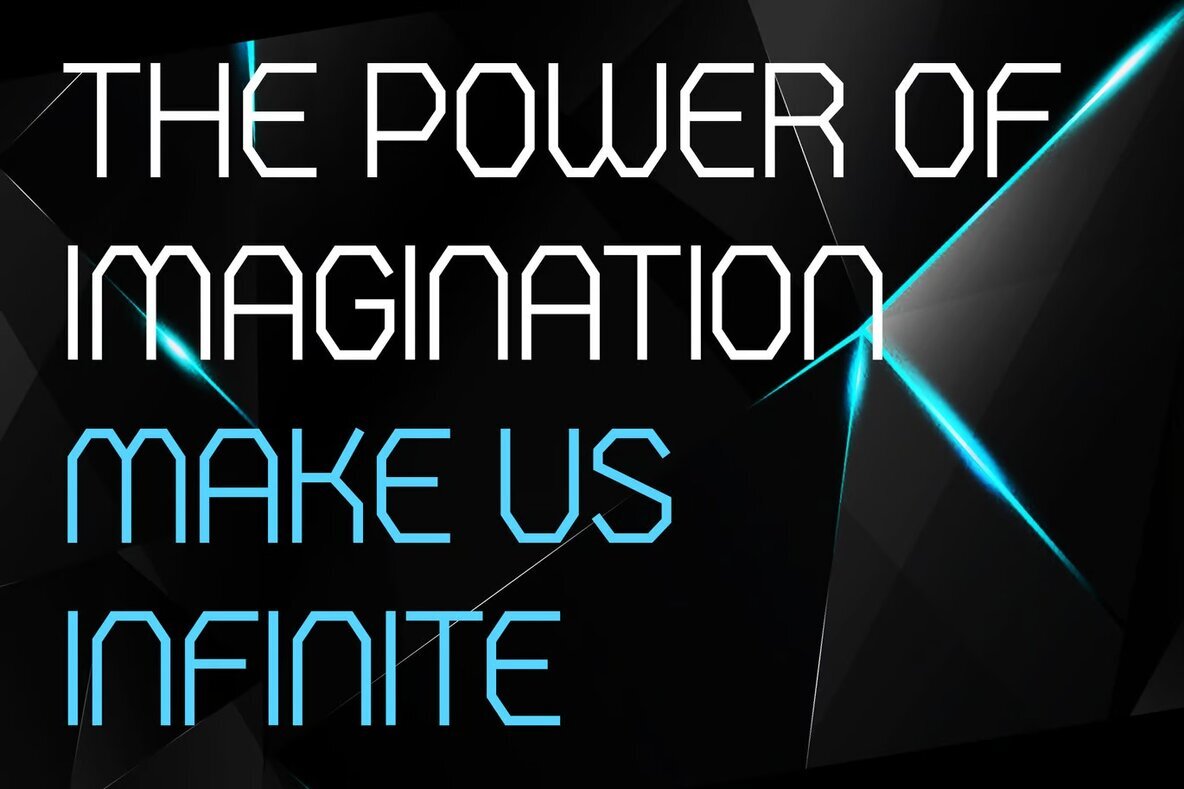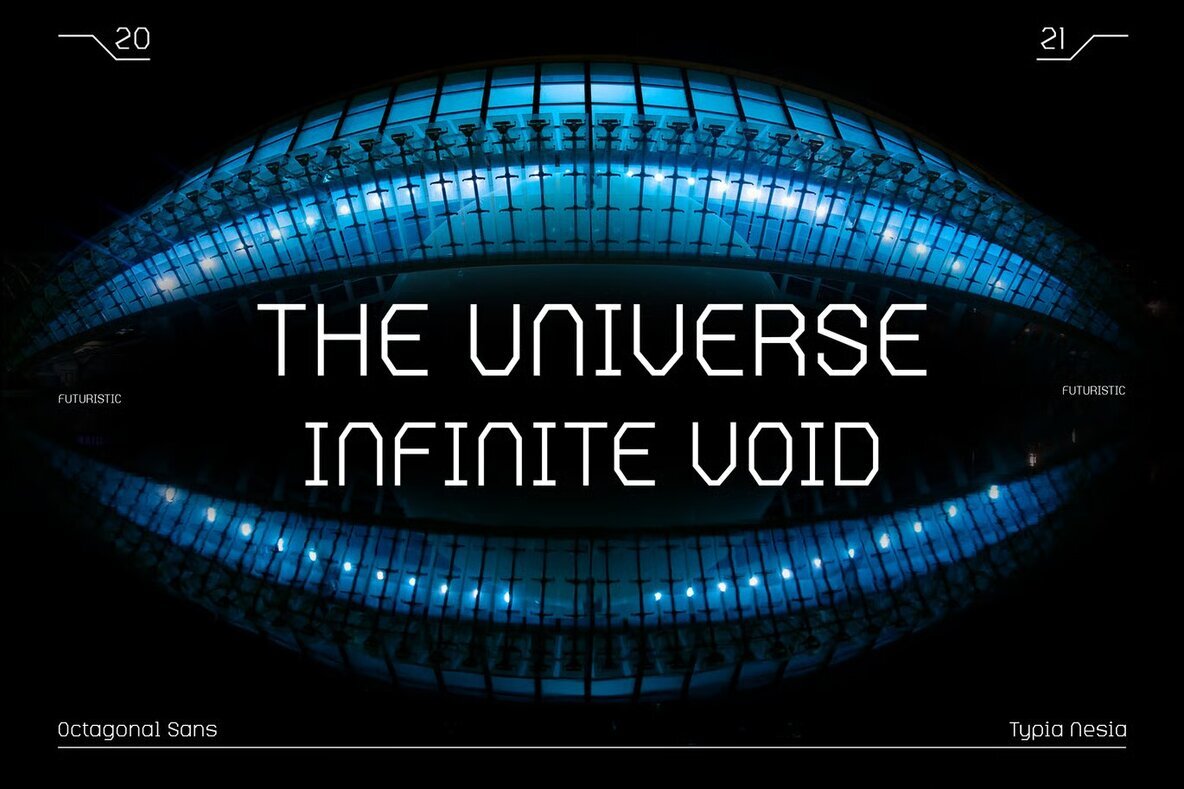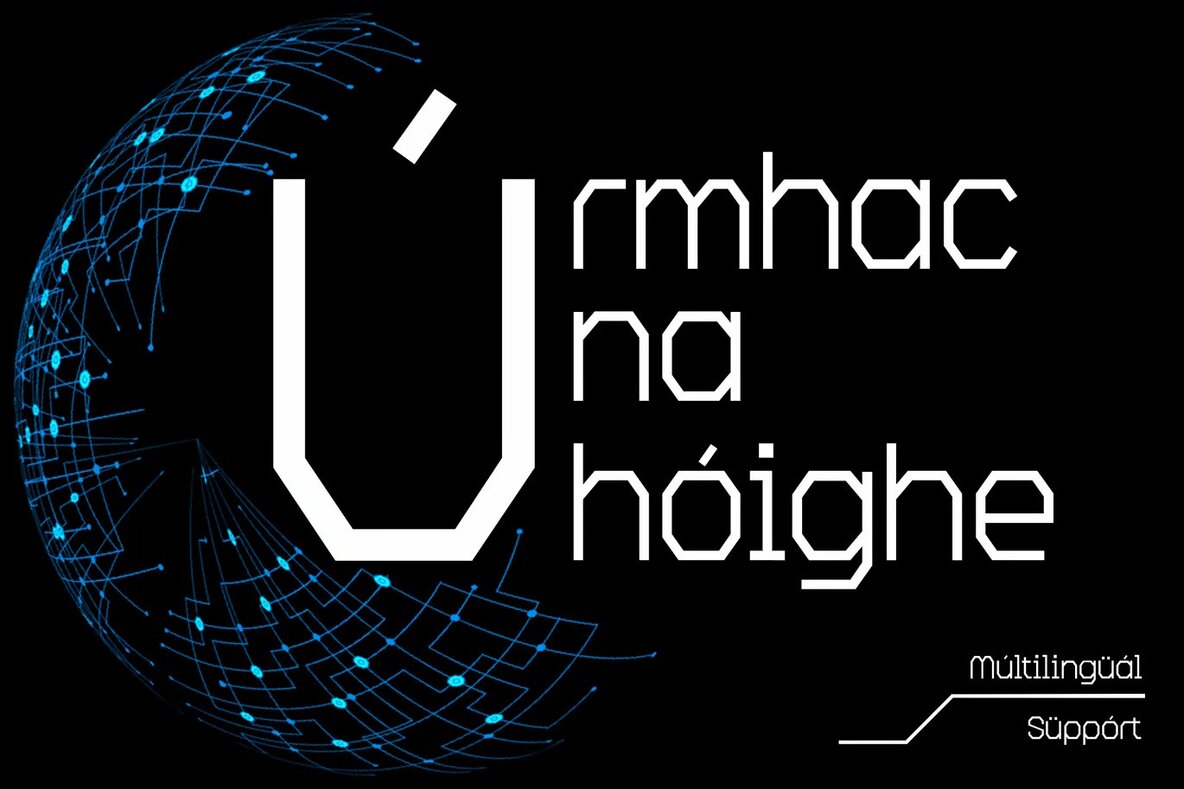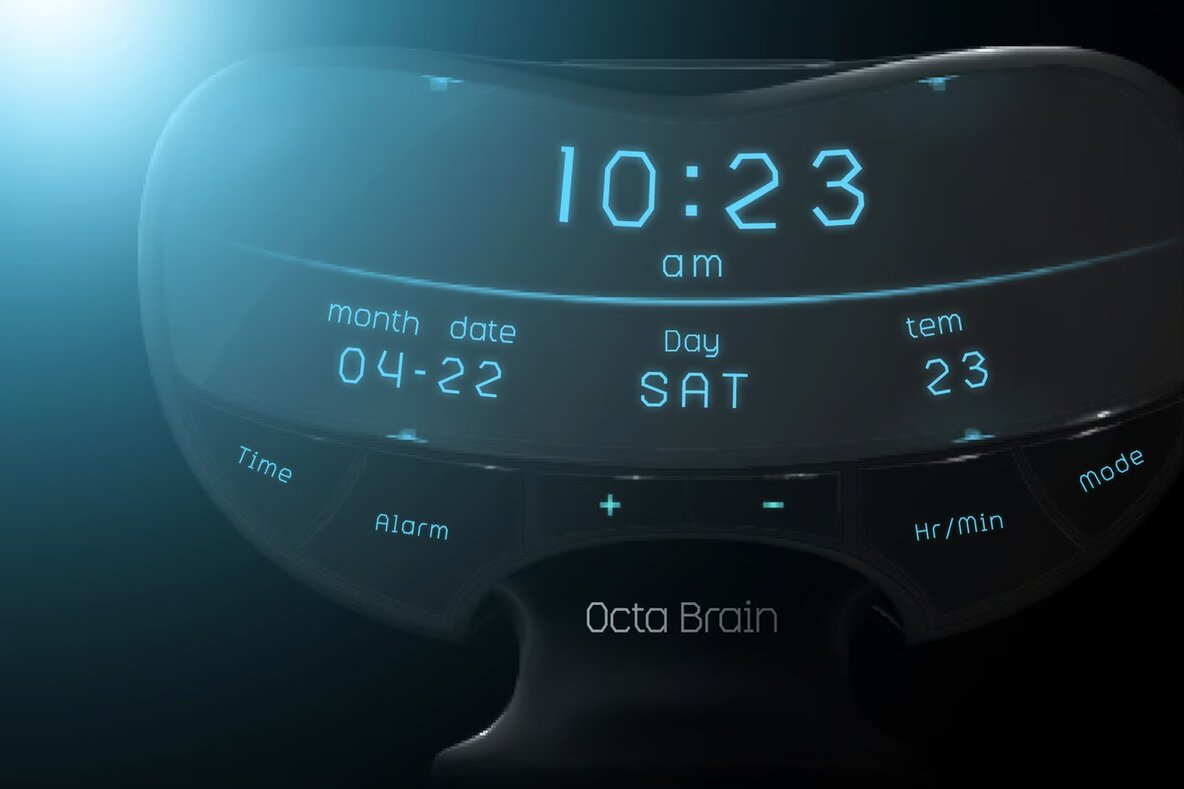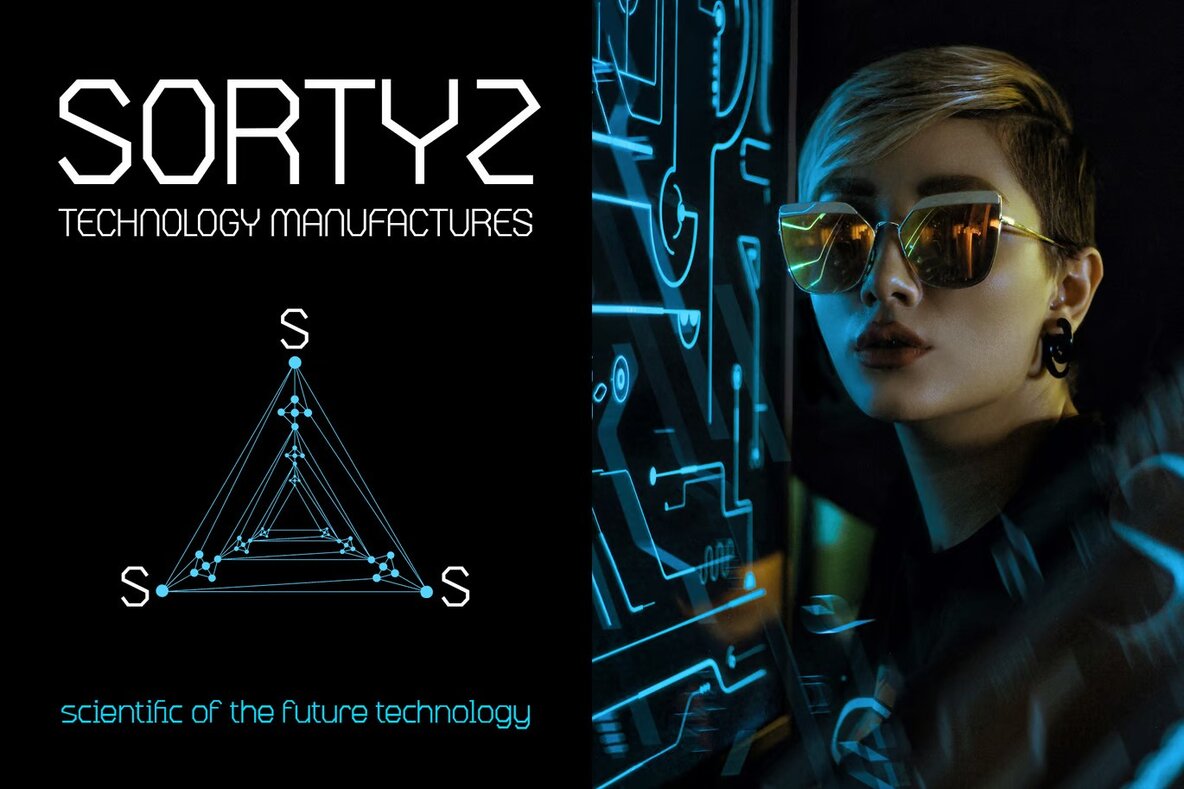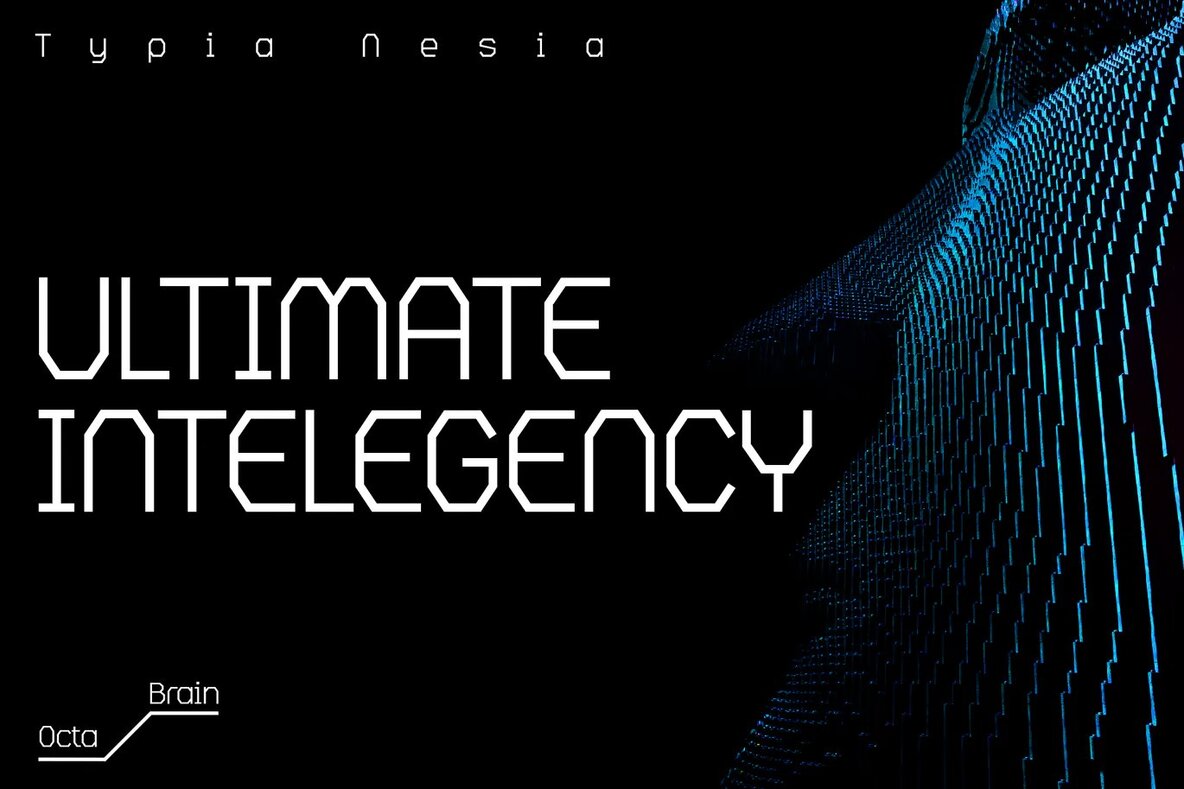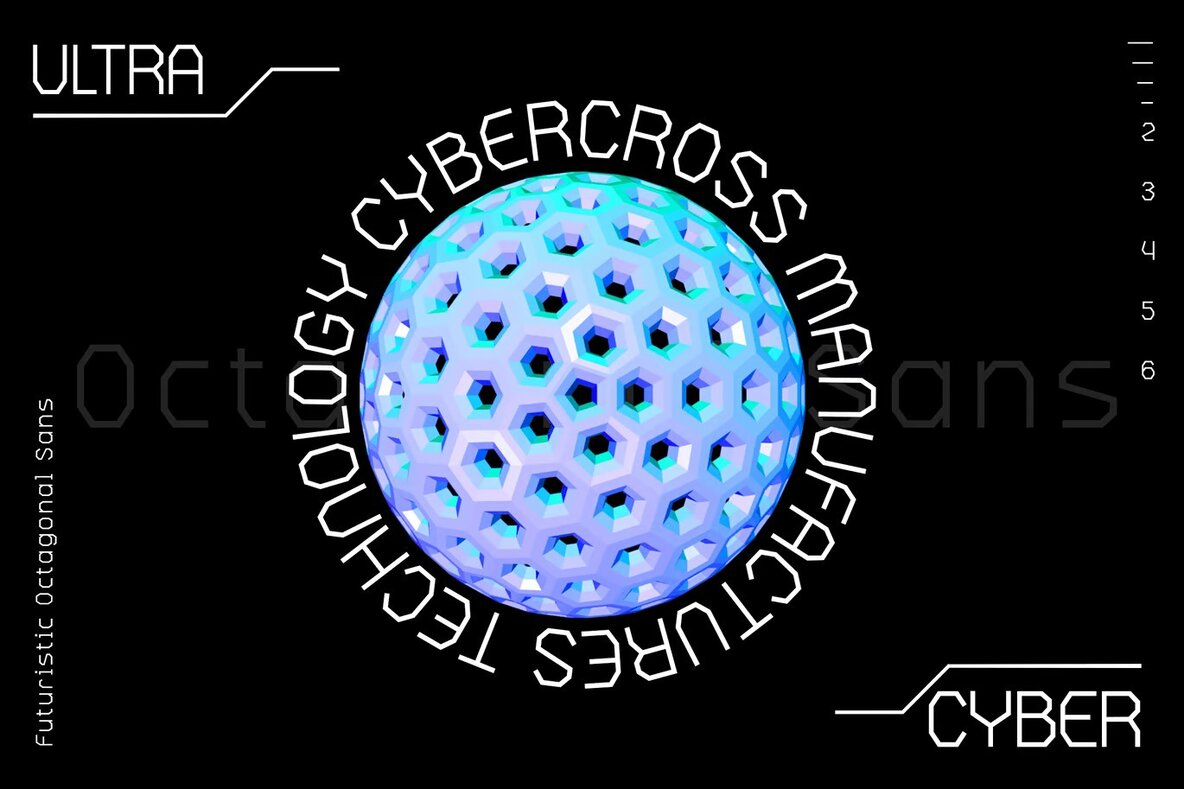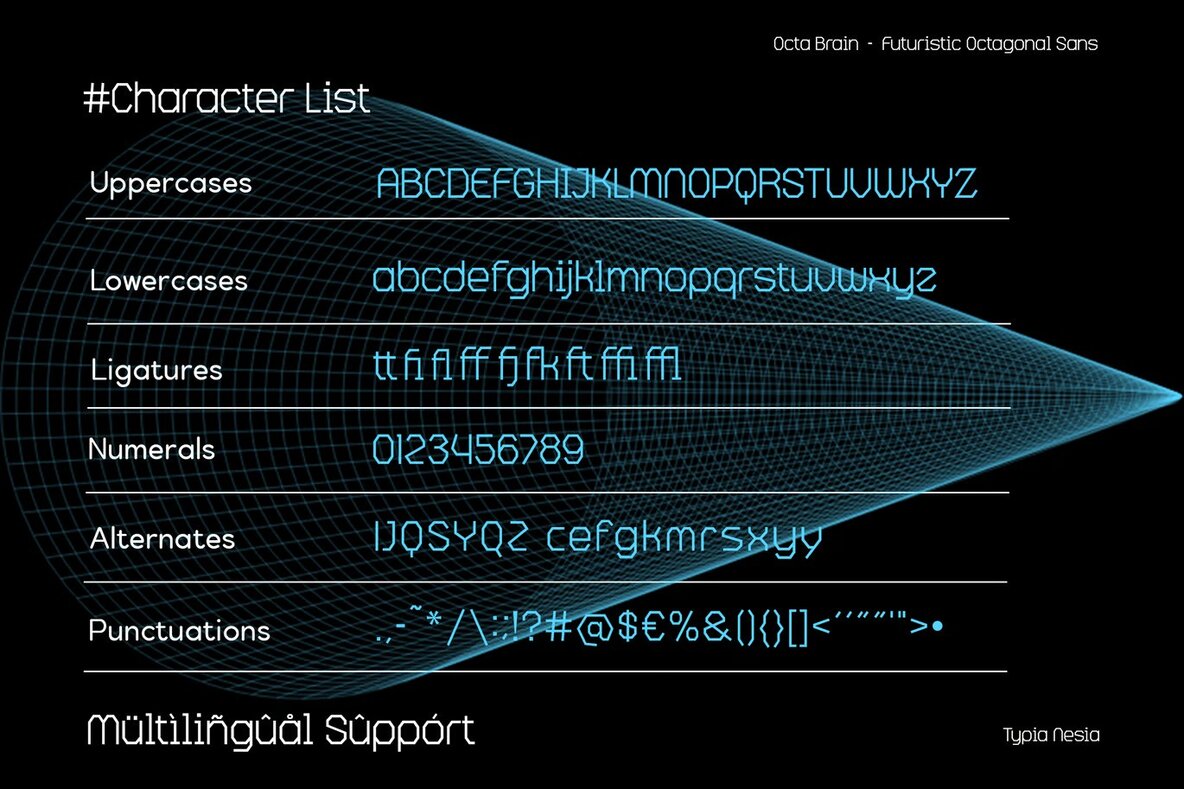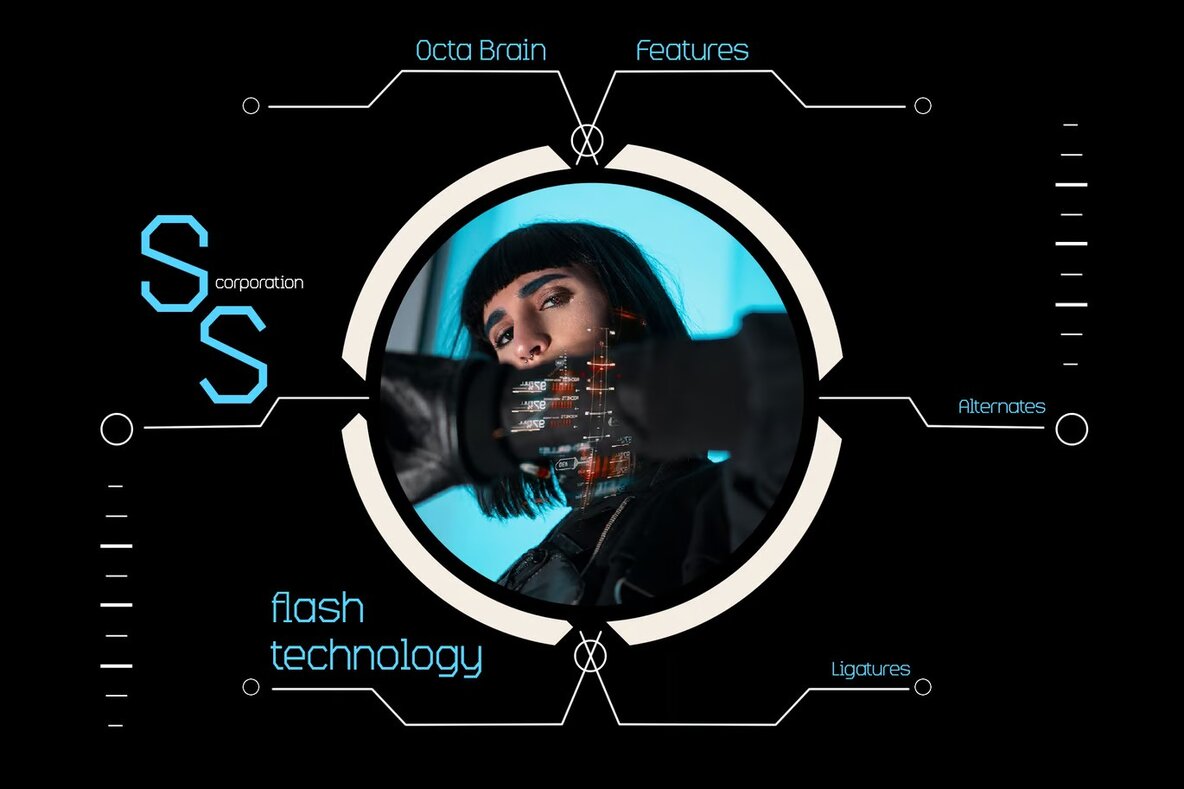
Octa Brain Font
Octa Brain Regular
Octa Brain is a futuristic sans serif font featuring a modern, octagonal design, perfect for a wide range of digital and print projects. Its sleek, geometric style is ideal for logo branding, editorial work, and stationery design. This font's versatility makes it a great choice for projects in the sports design arena, as well as 80s retro themes and the gaming industry.
Utilize Octa Brain for music posters, blogs, modern advertisements, and invitations. It also complements art quotes, movie promotions, home decor, and book or cover titles. The font's contemporary flair is suitable for special events and more, adding a sophisticated edge to any creative endeavor.